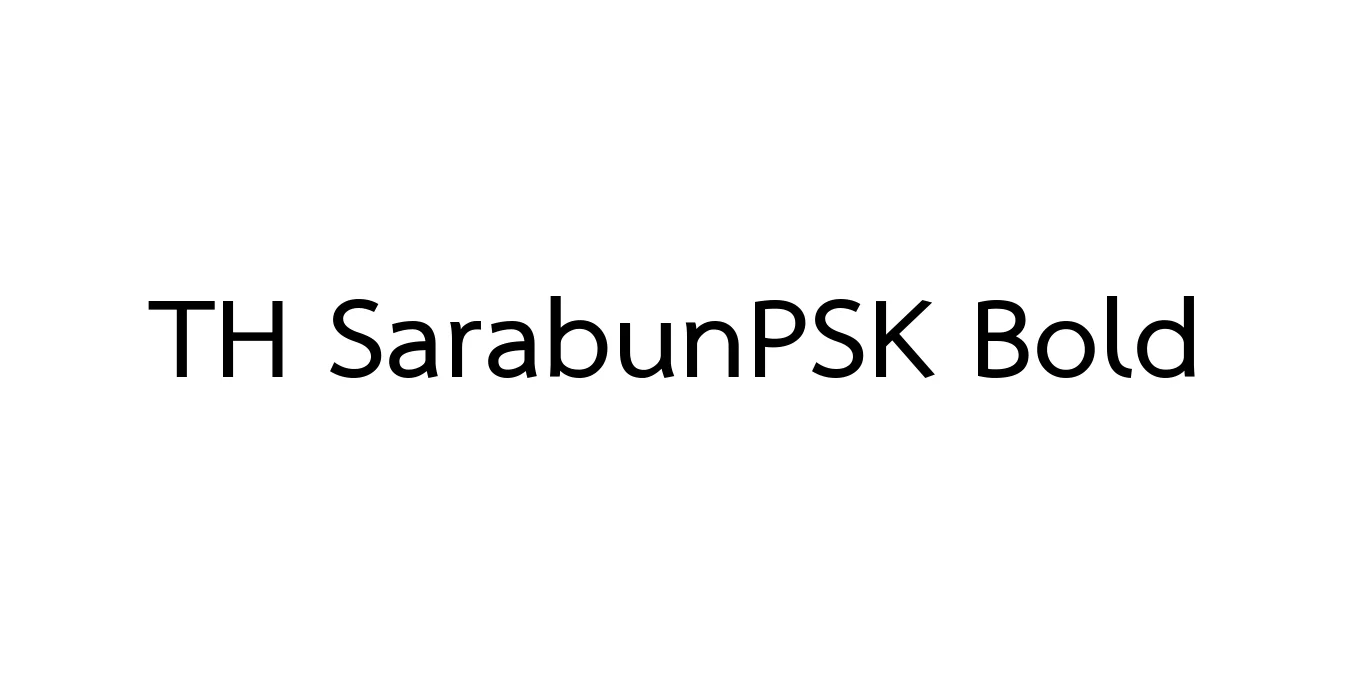
TH SarabunPSK Bold
Designed by Suppasit Guasongserm
| Category | Sans Serif / Thai |
| Designer | Suppasit Guasongserm |
| Similar Fonts | TH Sarabun New, Angsana New, Cordia New |
TH SarabunPSK Bold is a cornerstone of modern Thai typography, originally developed as part of a national project commissioned by the Software Industry Promotion Agency (SIPA) and the Department of Intellectual Property. Designed by Suppasit Guasongserm, this typeface was created to offer a standardized, high-quality, and free-to-use alternative to commercial fonts for government and public use. The bold weight provides excellent contrast and emphasis, making it indispensable for formal Thai documentation.
As part of the National Fonts initiative, TH SarabunPSK Bold follows the Sarabun style, which is a clean, modern sans-serif that retains the essential characteristics of traditional Thai script. In 2010, it became the mandatory font for all Thai government administrative work and official letters. Its wide adoption is due to its exceptional legibility and professional aesthetic across both digital interfaces and high-resolution print media.
TH SarabunPSK Bold Best Uses
The primary font used for Thai government and legal paperwork.
The industry standard for Thai thesis and research submissions.
Used for professional reports and formal corporate identity.
Excellent for headings in magazines, brochures, and newspapers.